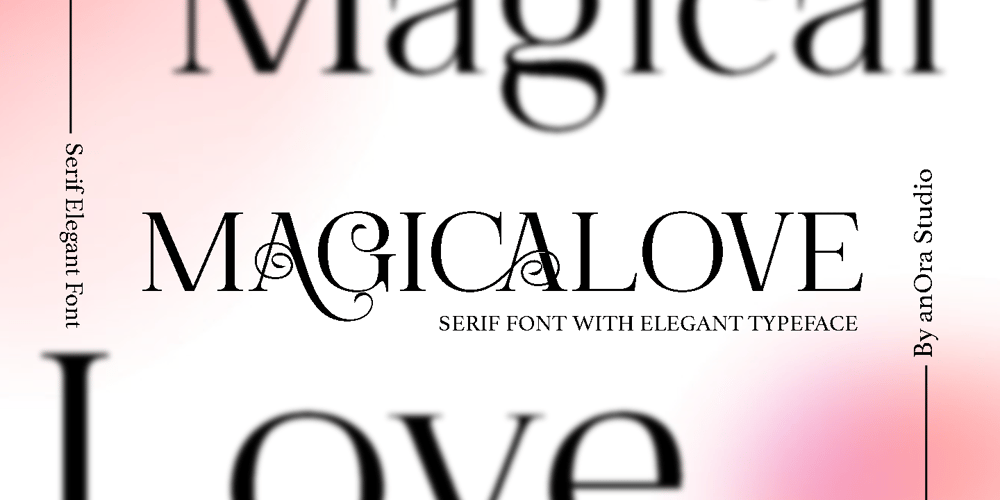
Magicalove
Magicalove font
Magicalove Font Family was designed by Sigit Mulyo Utomo and published by Anora Studio. Magicalove contains 1 styles and family package options. Magicalove is a Romantic Display Serif Font with Elegant Typeface Alternates and Ligatures.SOFTWARE REQUIREMENTS :Fonts and alternate : No special software required they may be used in any basic program /website apps that allows standard fonts That’s it folks! You can go ahead and get cracking :)Follow My Shop For Upcoming Updates Including Additional Glyphs And Language Support. And Please Message Me If You Want Your Language Included or If There Are Any Features or Glyph Requests, Feel Free to Send me A Message. Have a Good Day !